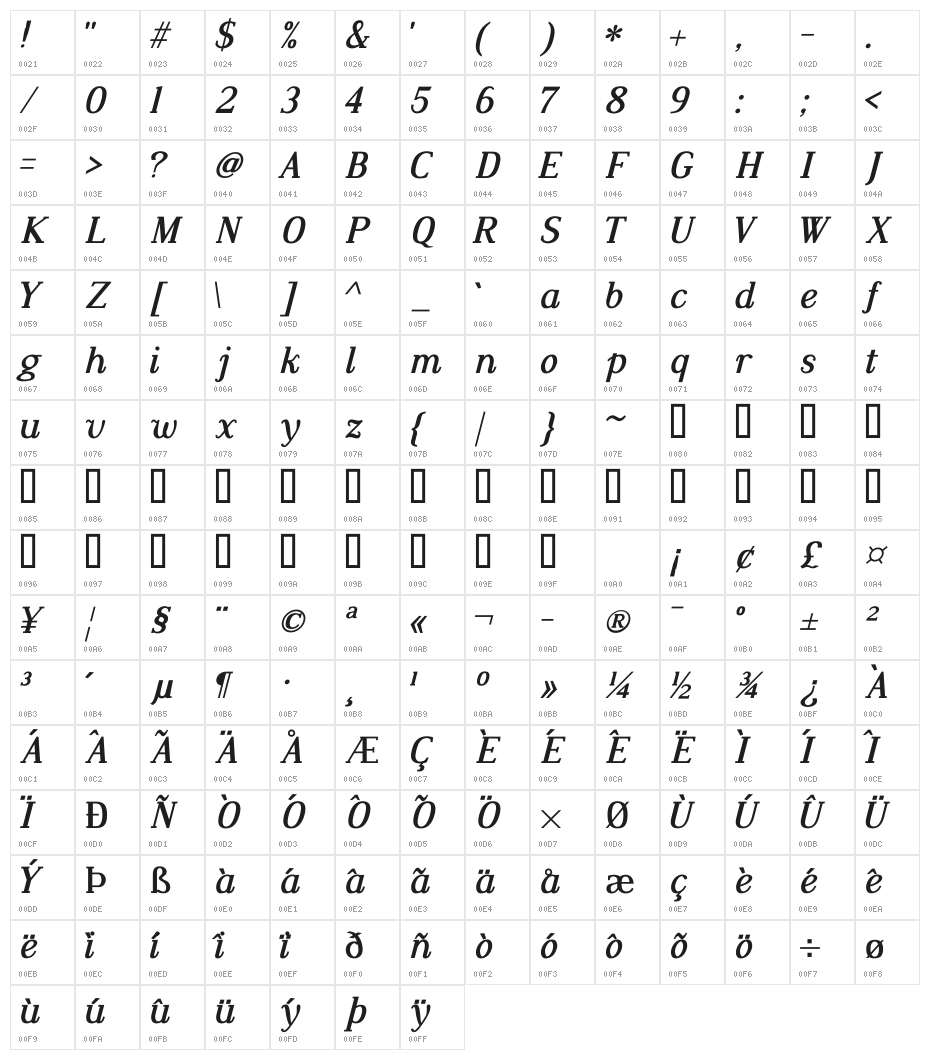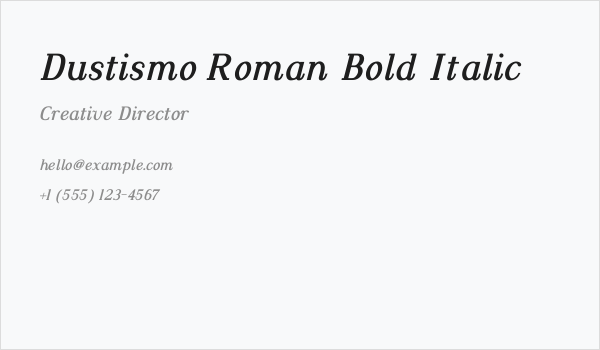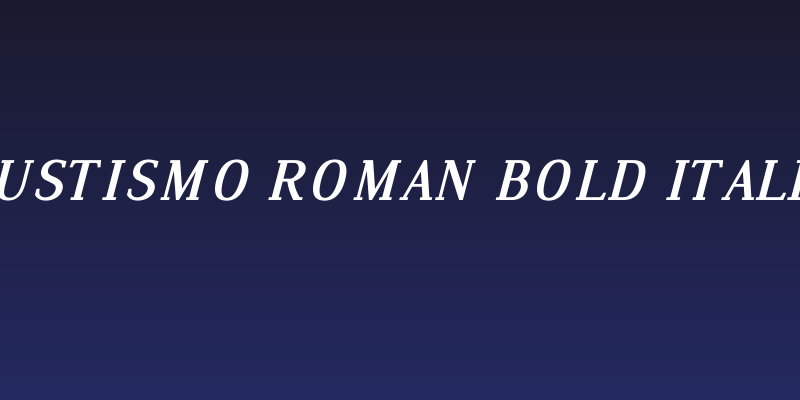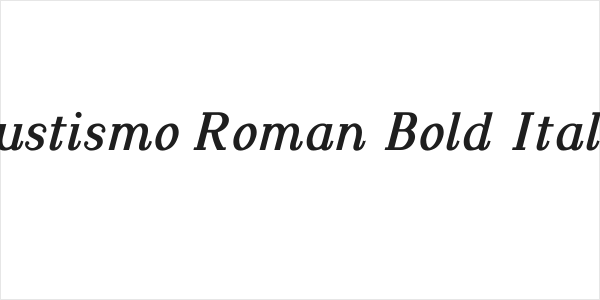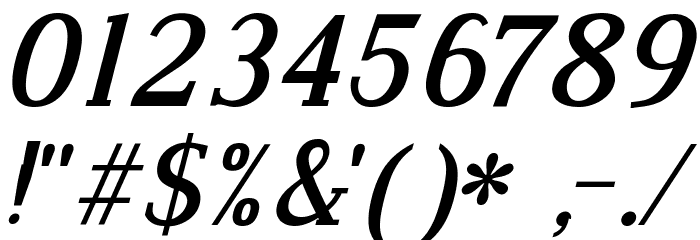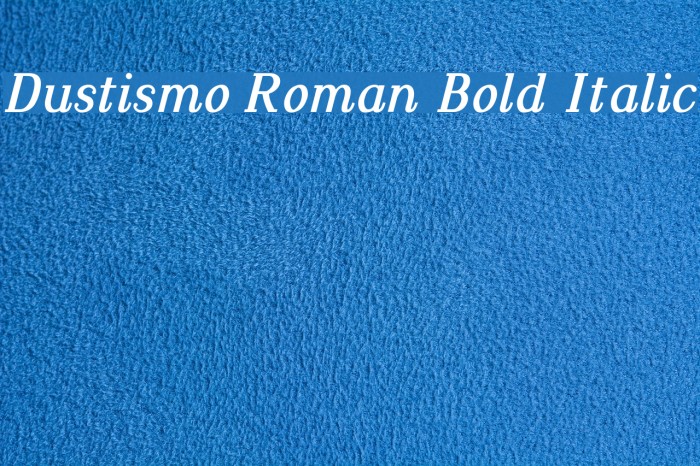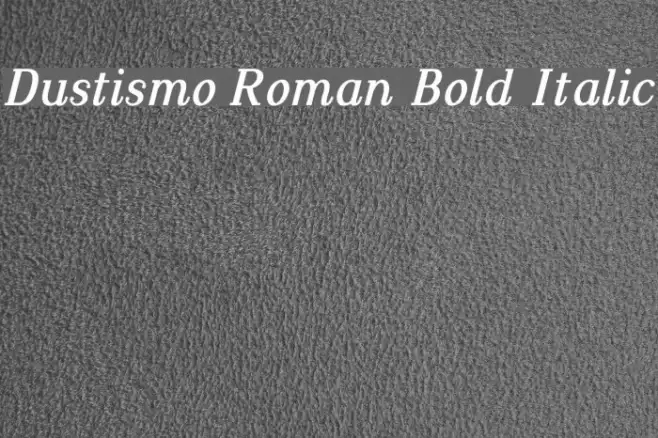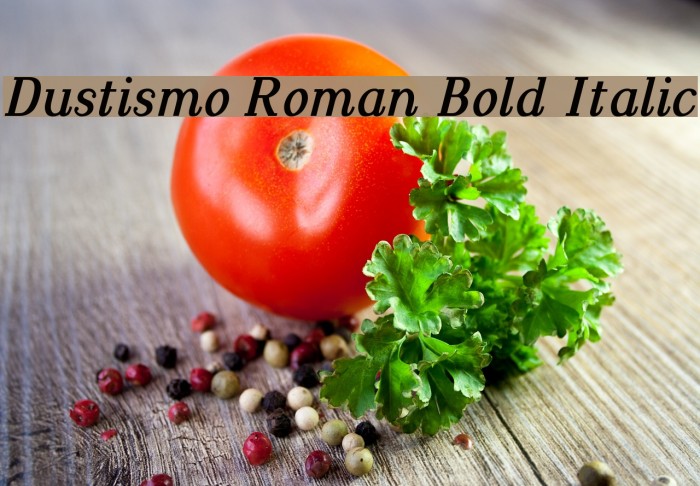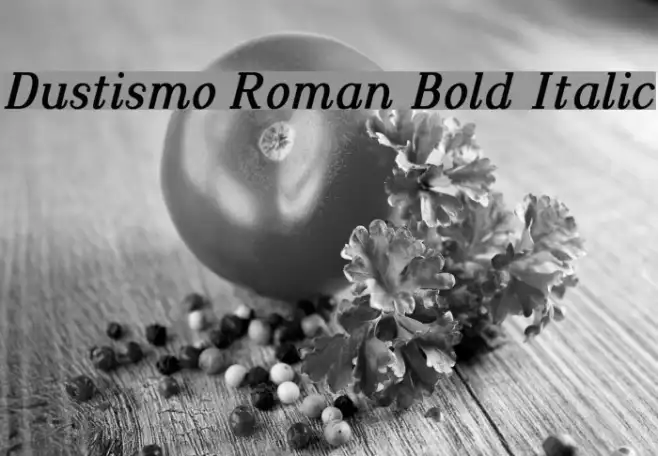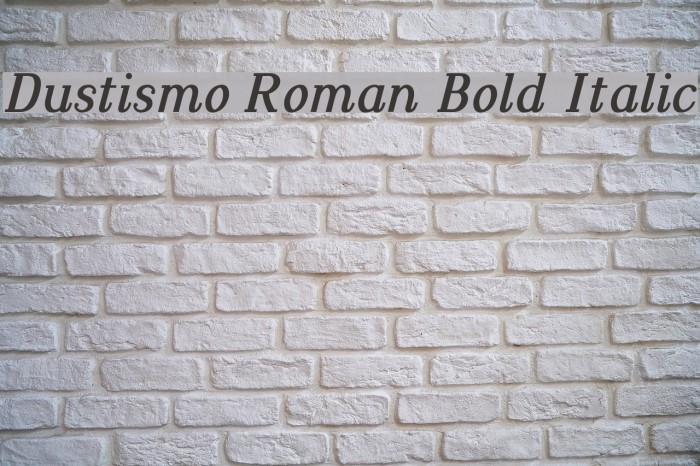
Dustismo Roman Bold Italic Font
✎ Serif
| Catégories | Serif |
| Style général | Classic |
| Cas d'utilisation | Headlines, Logos, Editorials |
| Projets proposés | Ideal for formal invitations, editorial headlines, book covers, and branding materials that require a touch of elegance and tradition. |